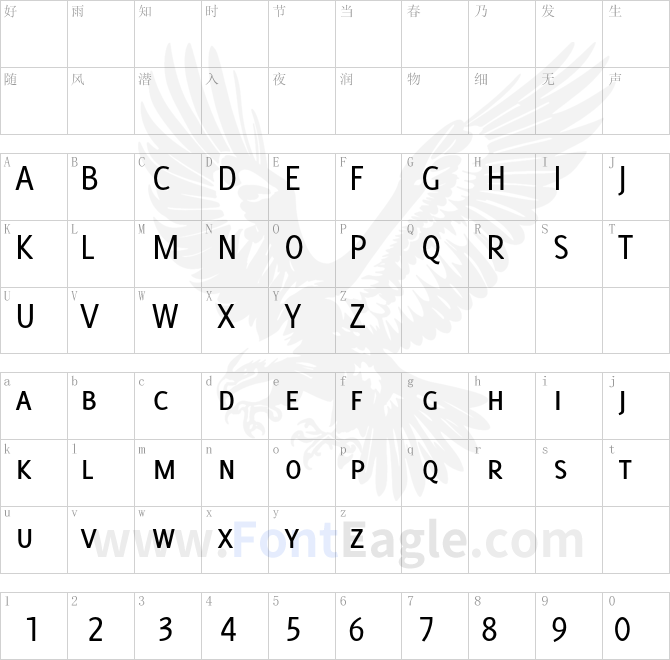
Delicious-SmallCaps is a great font, widely used in graphic design, single-page menu design, poster design and other fields, and is deeply loved by designers.Delicious-SmallCaps download.